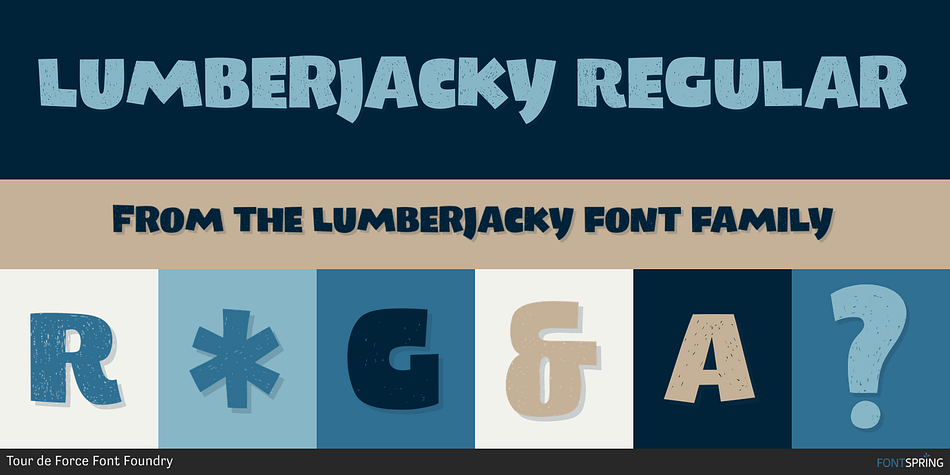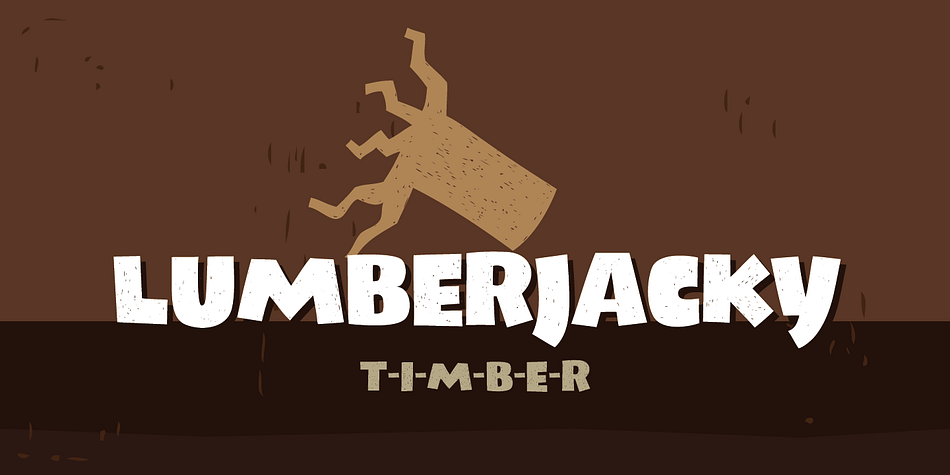
LUMBERJACKY REGULAR
Lumberjacky is a kids font published by Tour de Force Font Foundry.
In winter when cold time comes.
when animals with thin fur play drums,
there’s one guy who keeps you warm,
his name is Lumberjack and he’s stronger then storm!